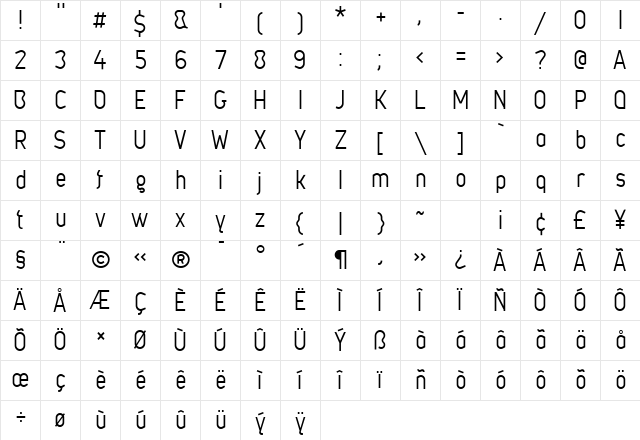
Metsys Regular
Metsys Family
Metsys Regular
Complete Metsys Regular glyph index. Displaying only characters natively supported by Metsys Regular font.
Design Context for Metsys
Metsys is a composed and adaptable typeface that performs quietly and consistently across a wide range of design contexts.